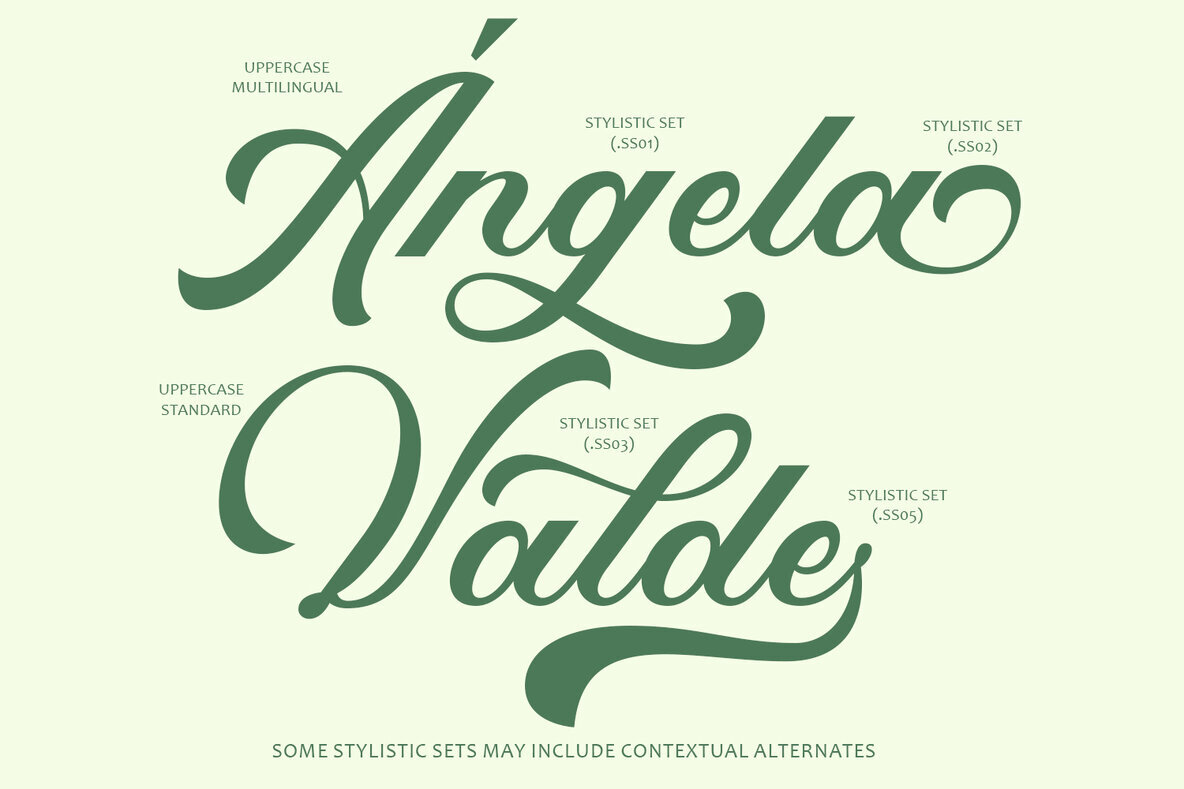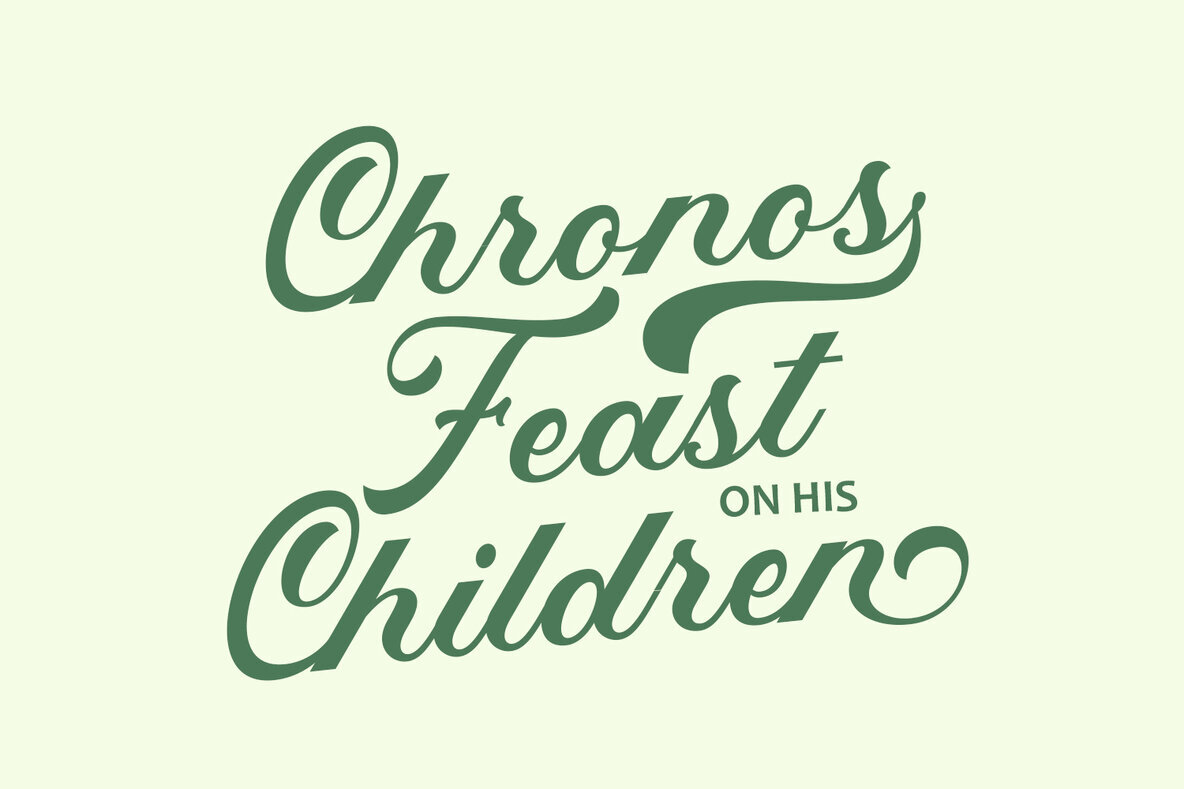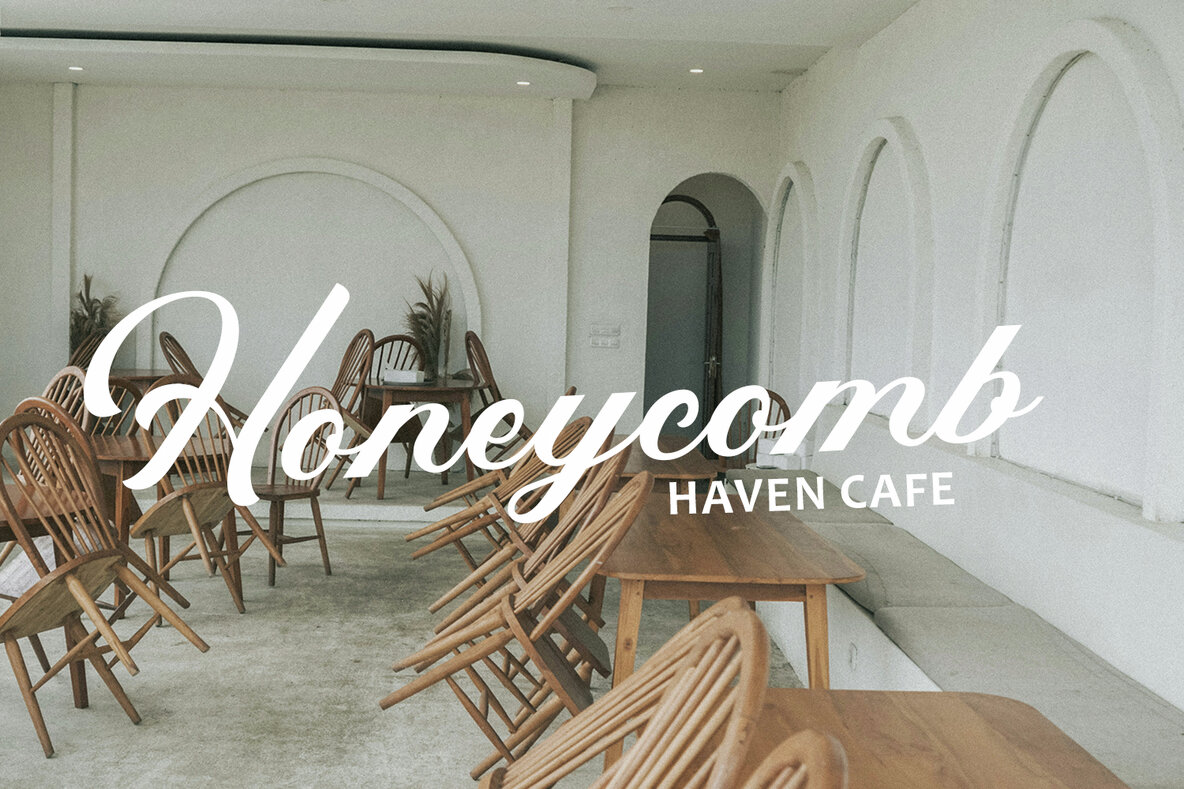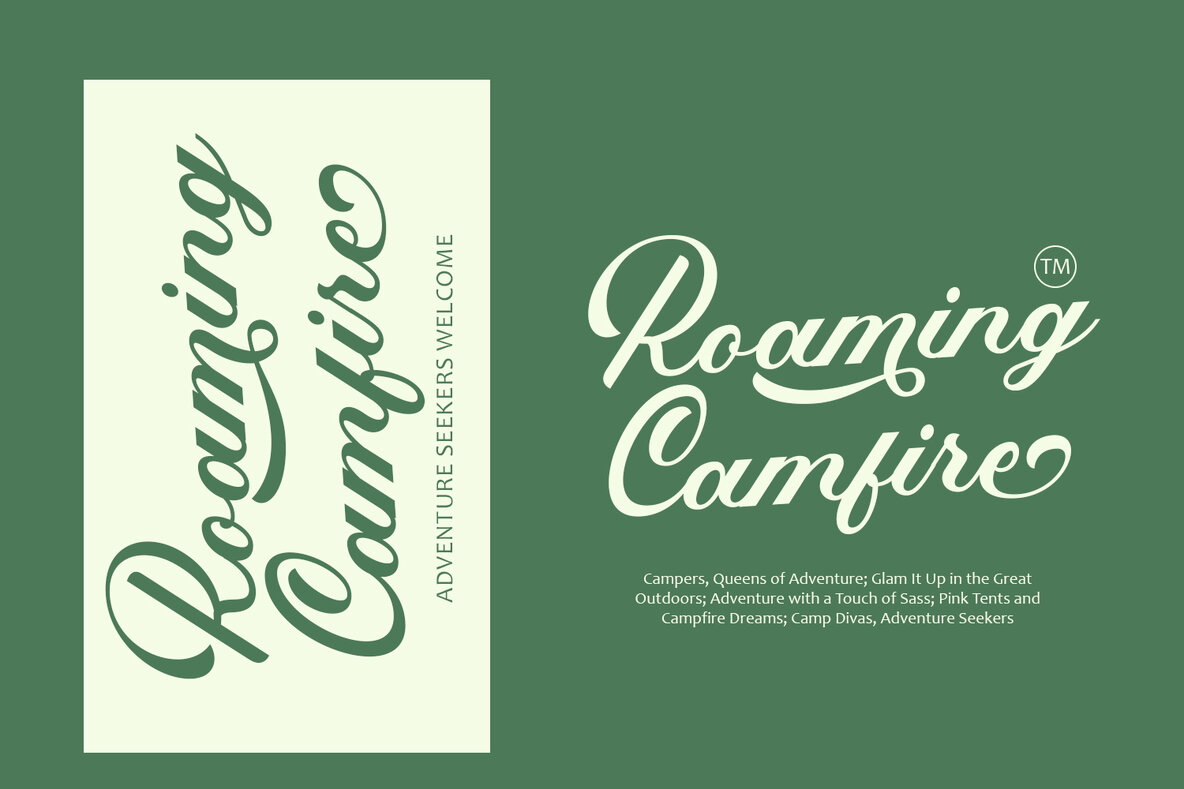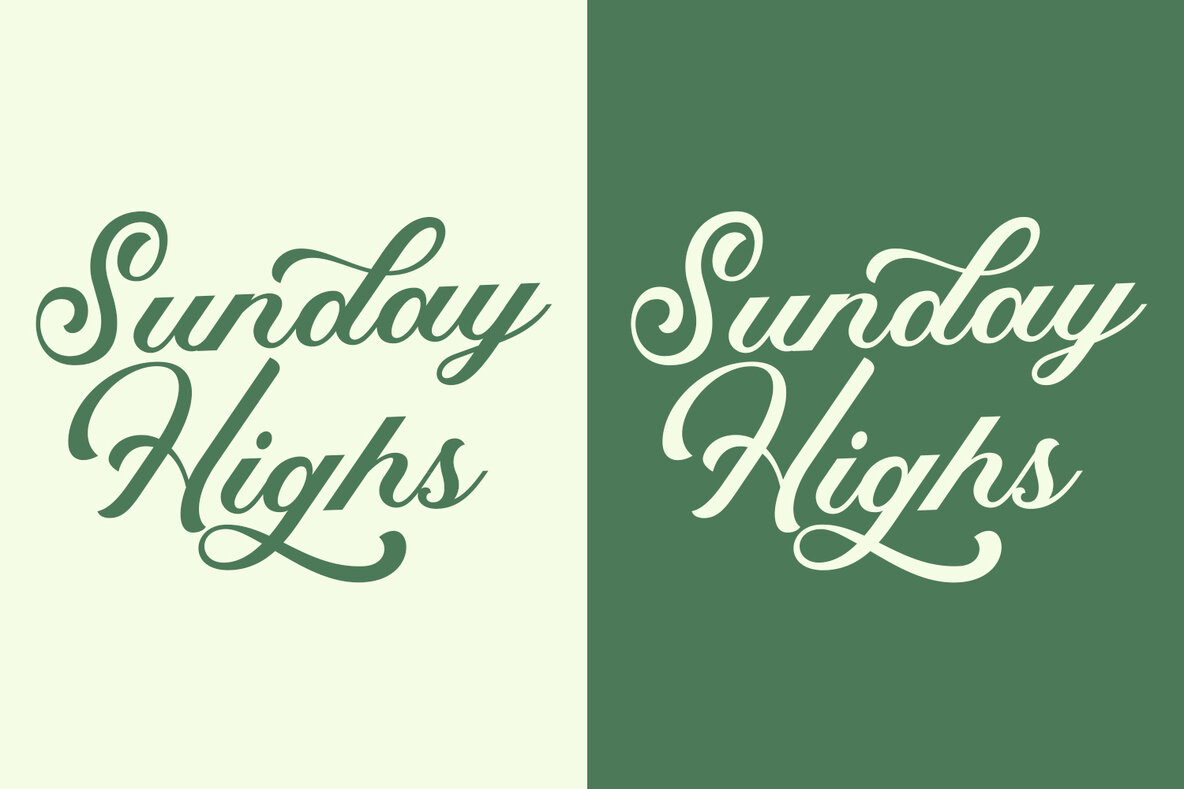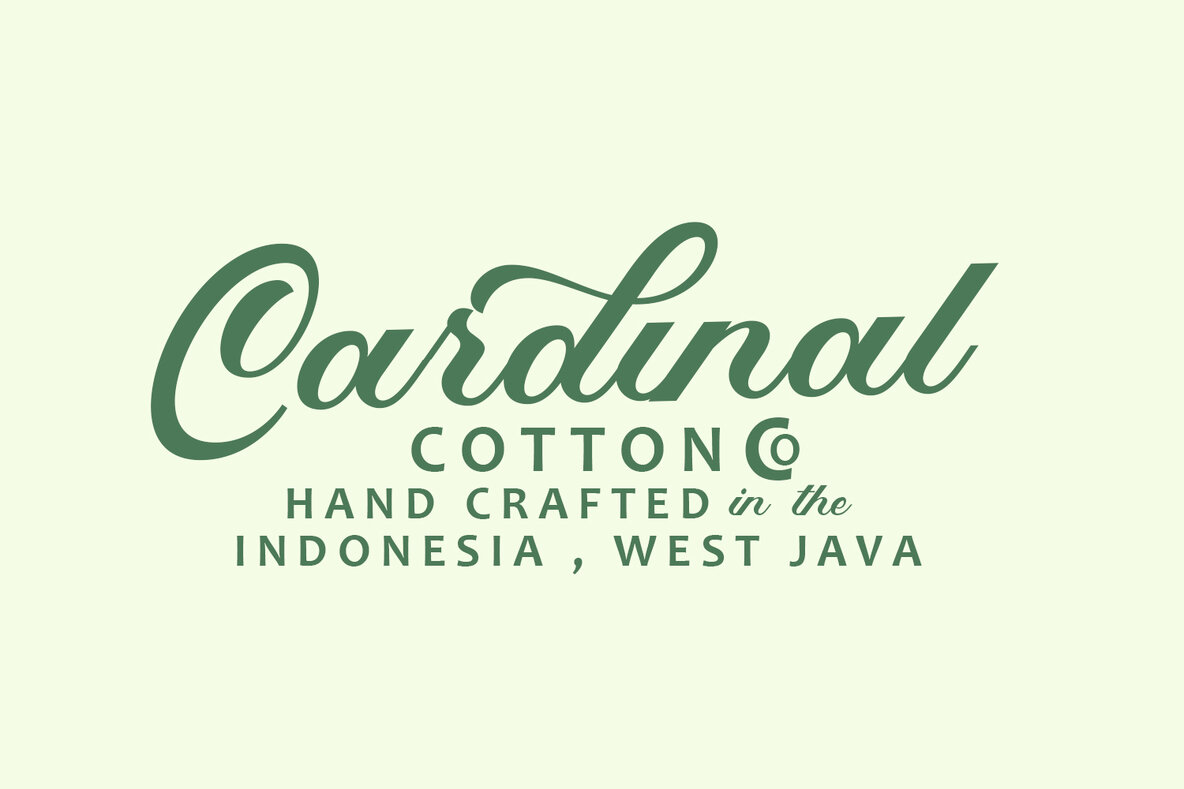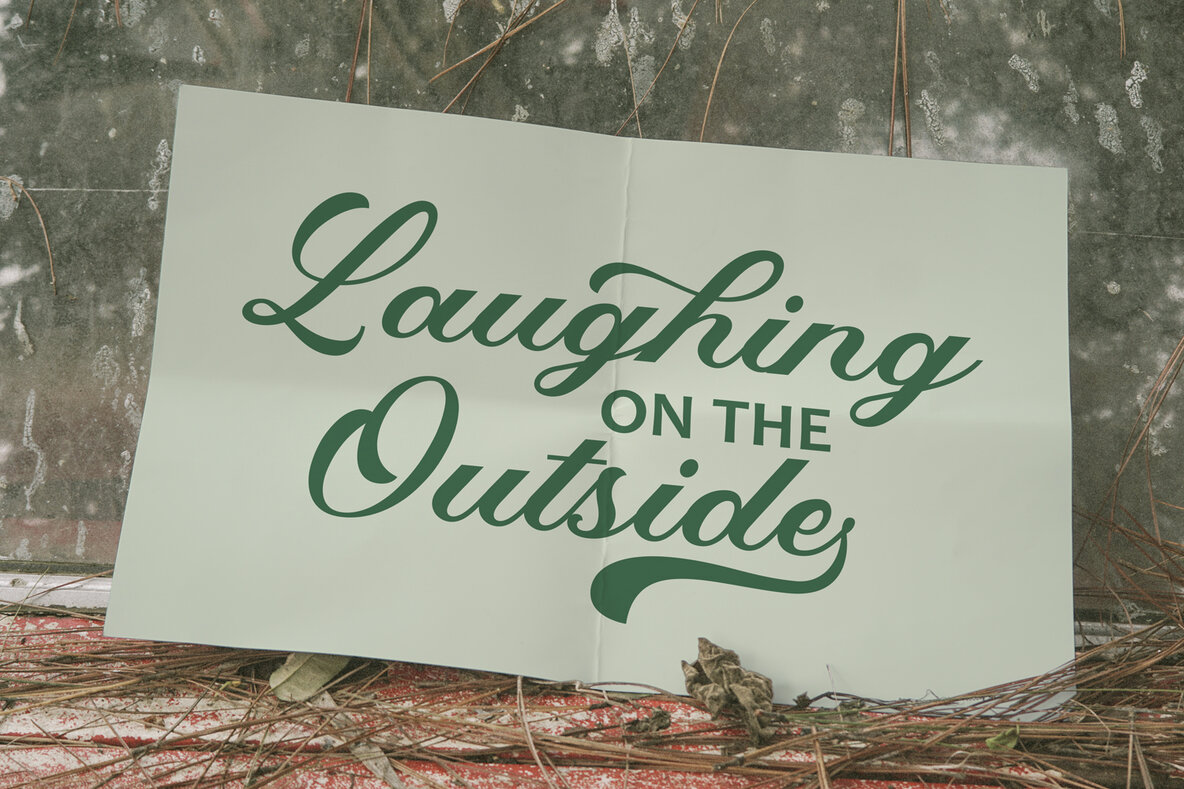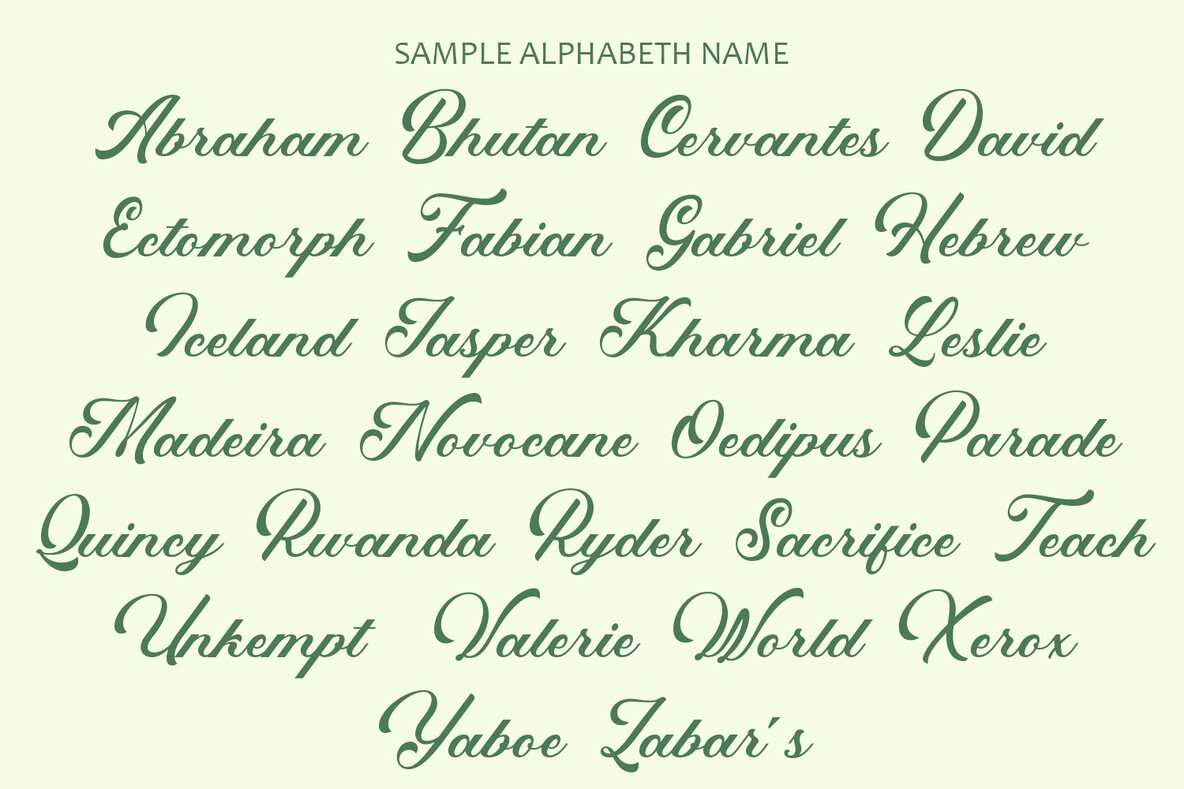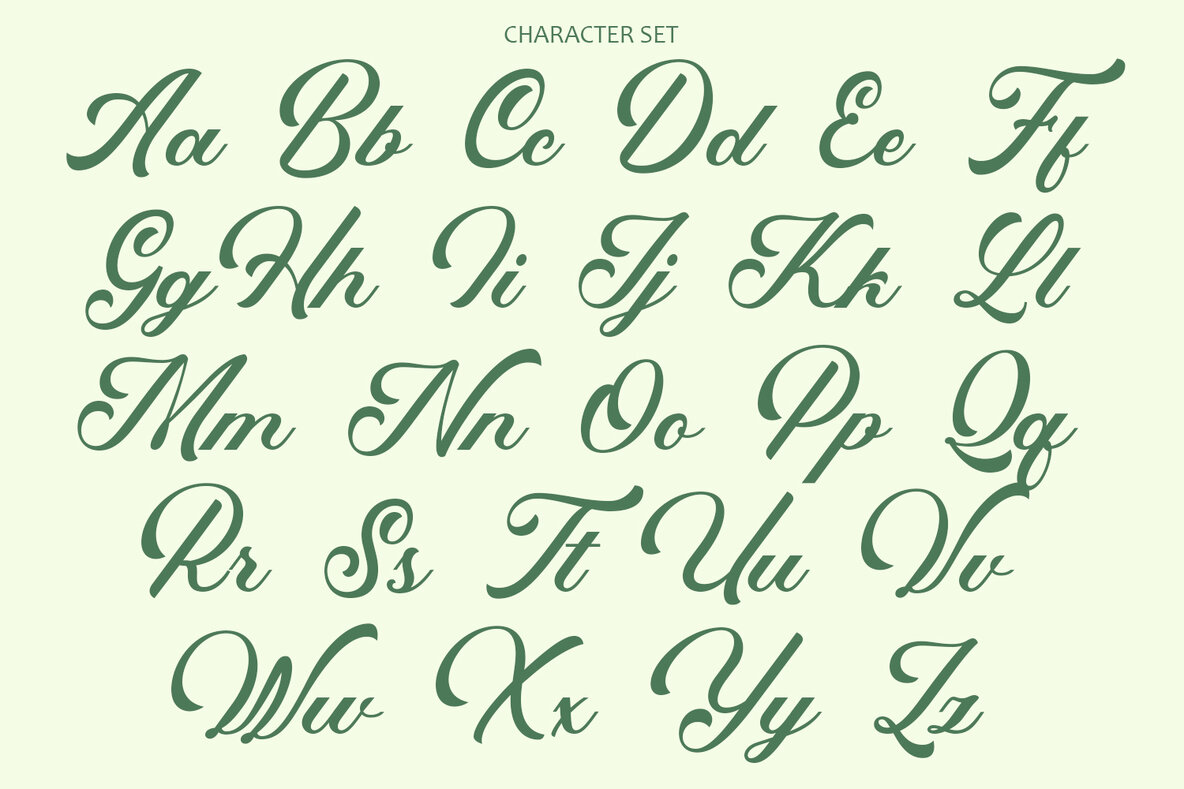
Slightly Hangover Font
Slightly Hangover
The Slightly Hangover script typeface captures the essence of informal handwritten calligraphy with its relaxed and slightly imperfect touch. Its fluid strokes and natural variations in line thickness lend each character a spontaneous and warm personality. Despite its casual appearance, Slightly Hangover maintains an air of elegance and sophistication, characterized by graceful curves and a gentle slant. This pleasing rhythm makes it suitable for a wide range of design applications, from wedding invitations and greeting cards to branding materials and packaging.
Slightly Hangover is a versatile typeface that offers a touch of handmade charm to any project. Its expressive nature allows designers to craft typographic compositions that convey warmth and authenticity, making it perfect for casual or intimate messages. Importantly, readability remains a priority, with each character carefully crafted for clarity even at smaller sizes. The typeface supports uppercase and lowercase characters, numerals, punctuation, multilingual accents, and includes a stylistic set with PUA encoding, ensuring that it can be used with standard graphic design software. The Slightly Hangover script typeface seamlessly blends casual elegance with unique personality, making it an engaging and memorable addition to any designer's toolkit.